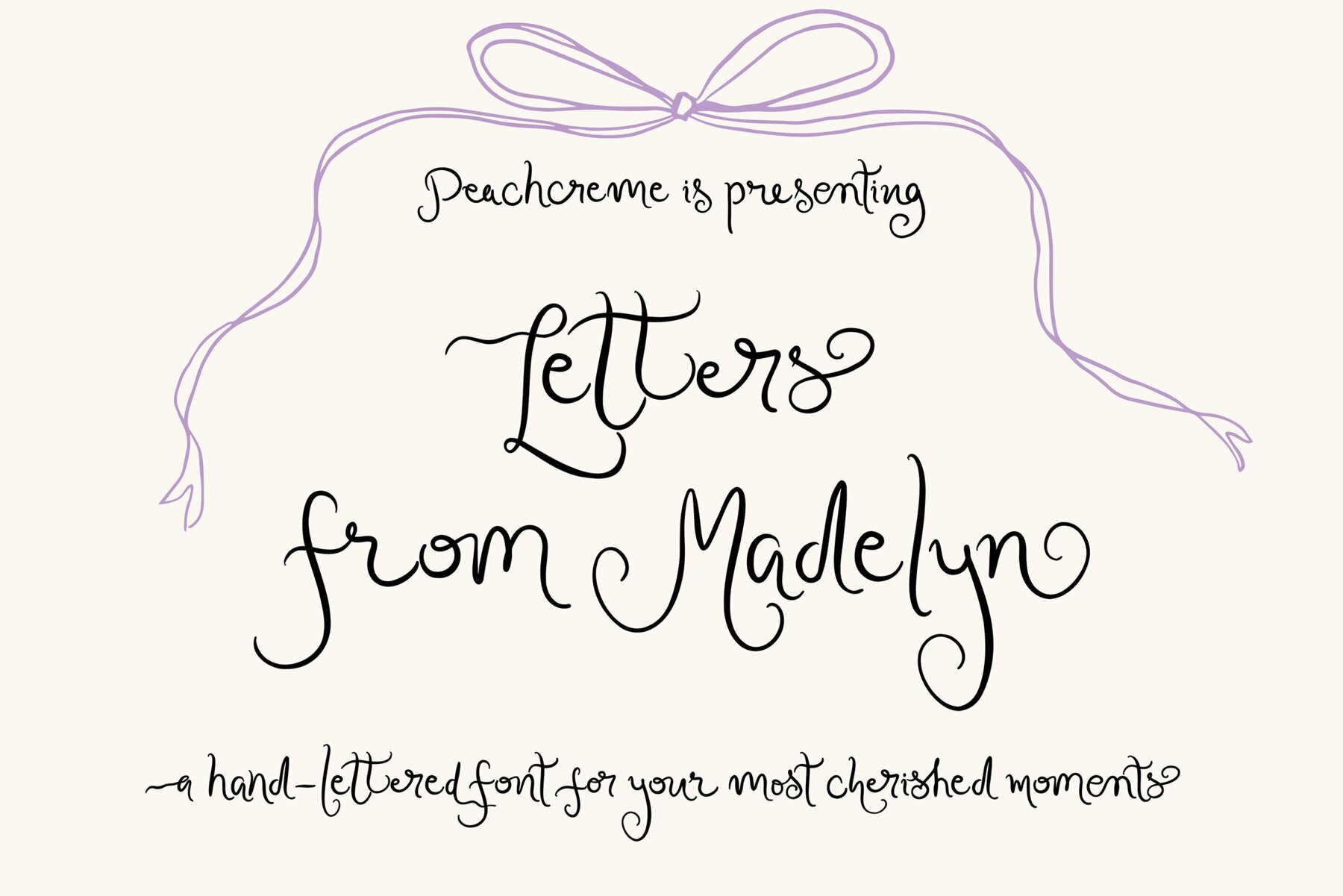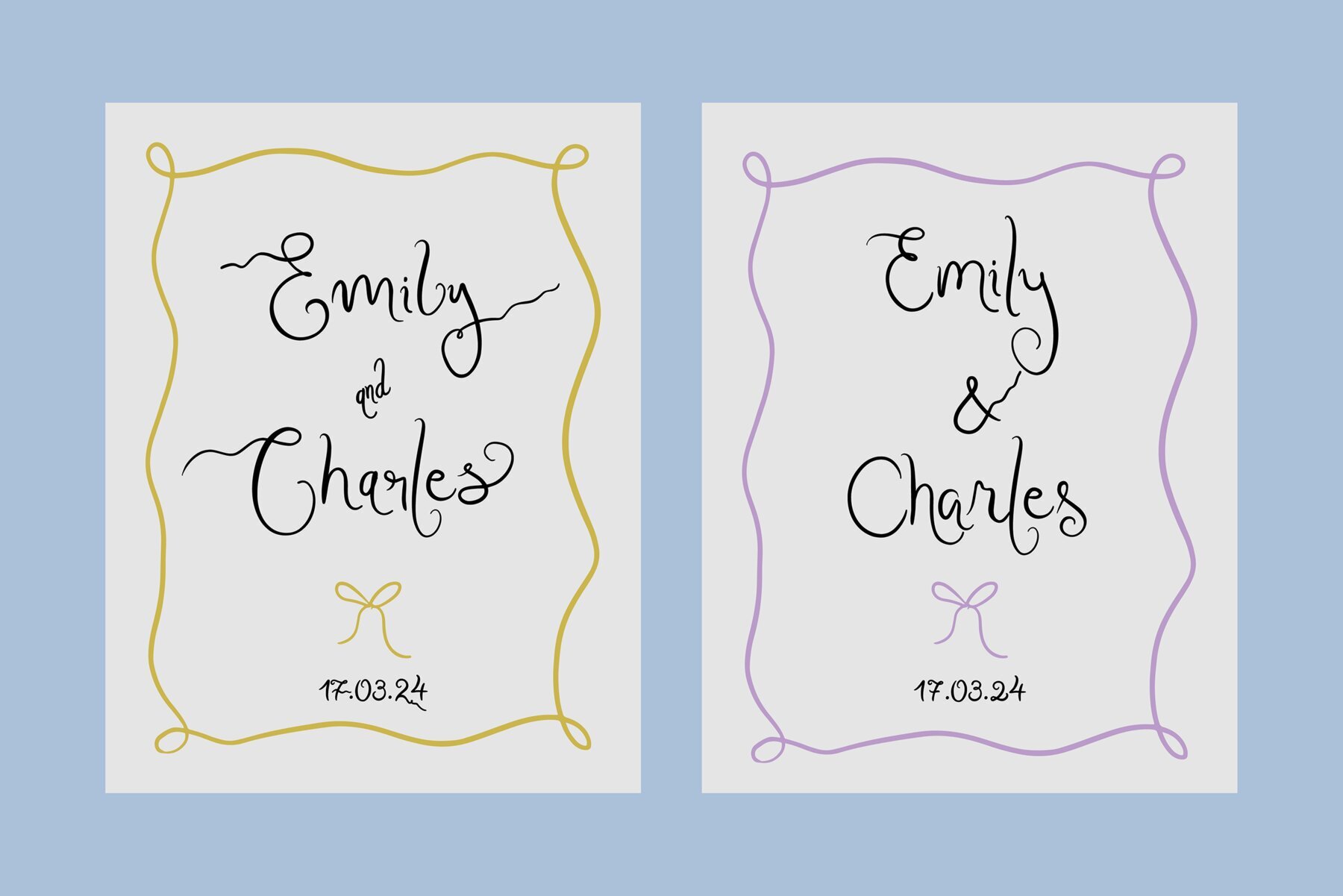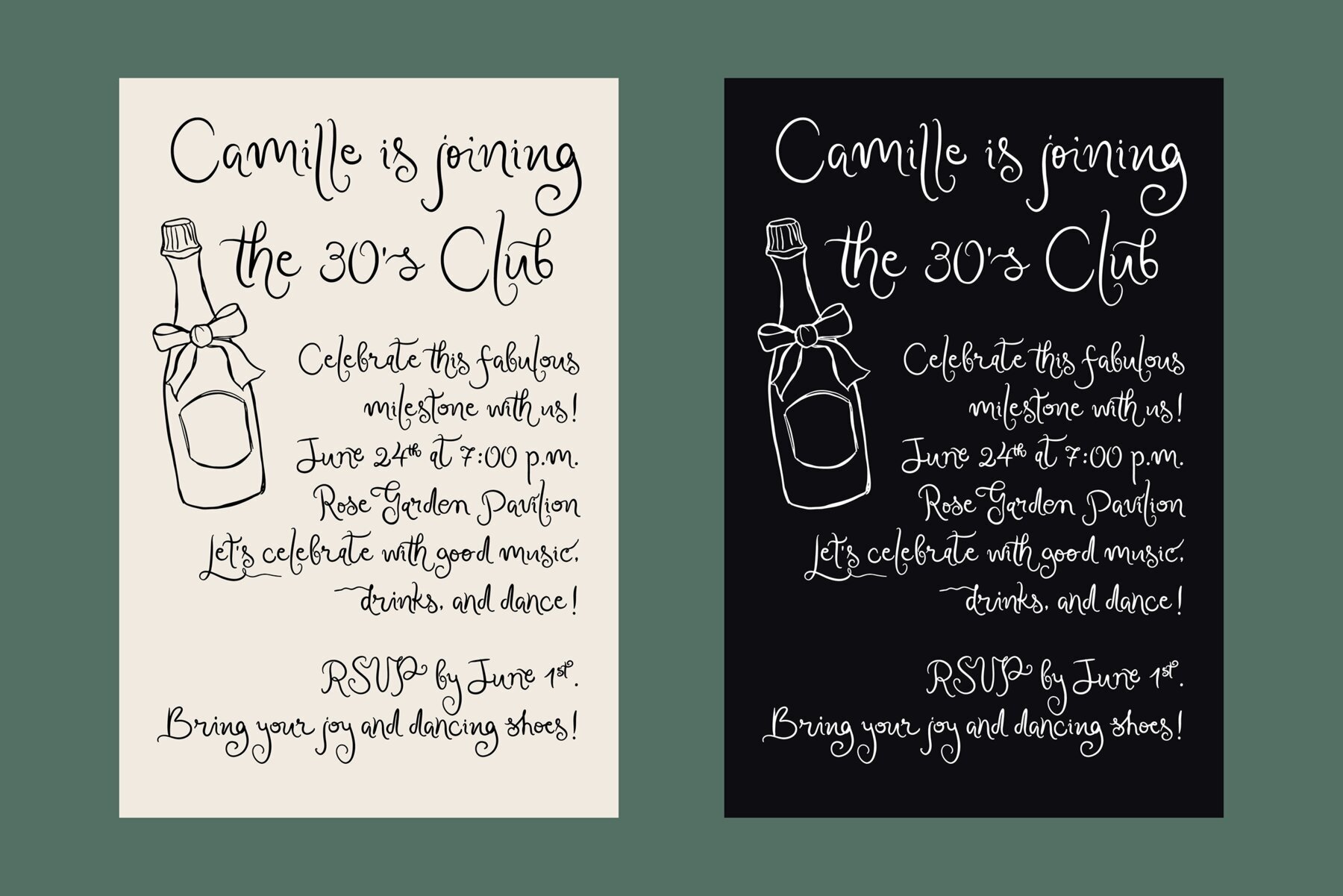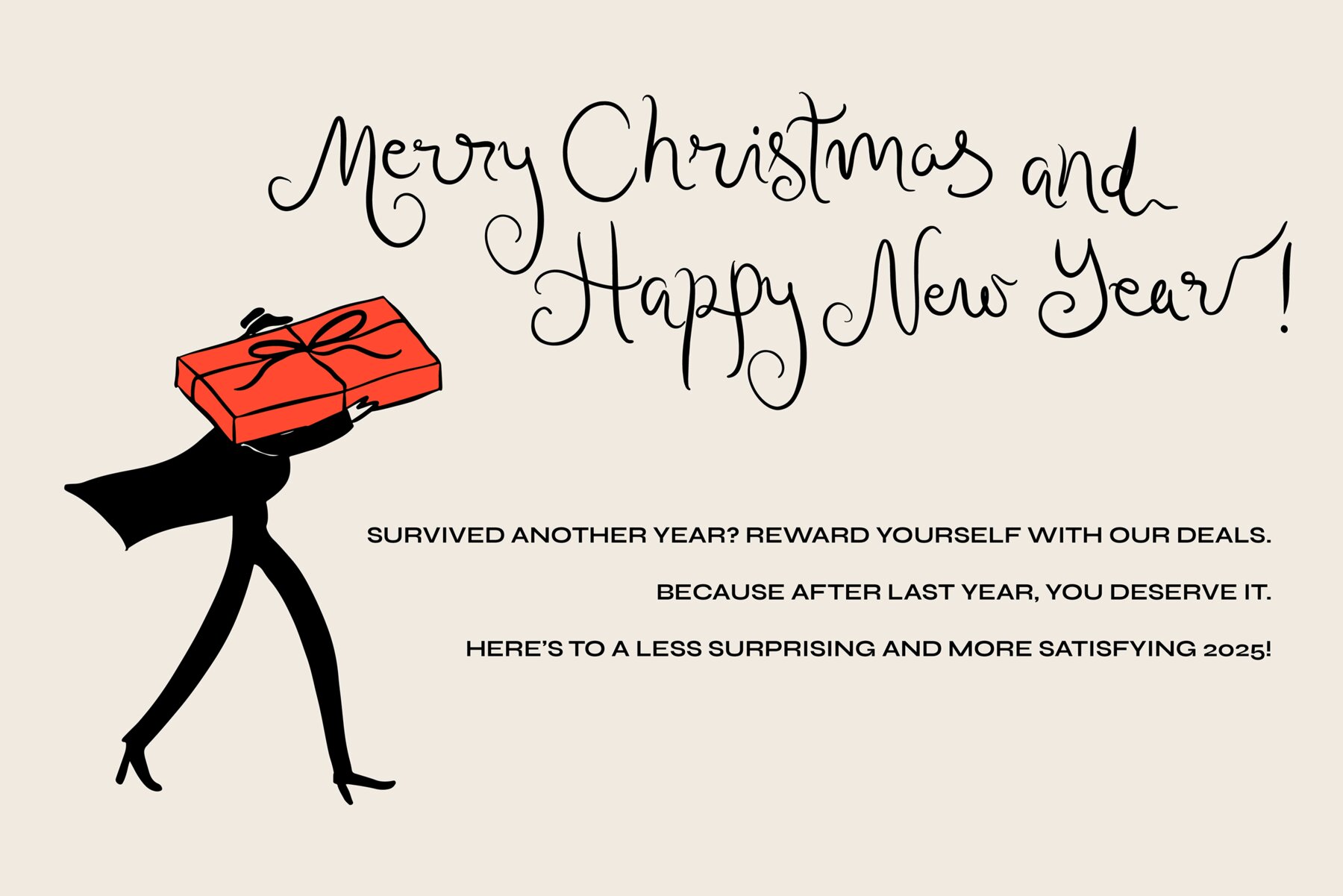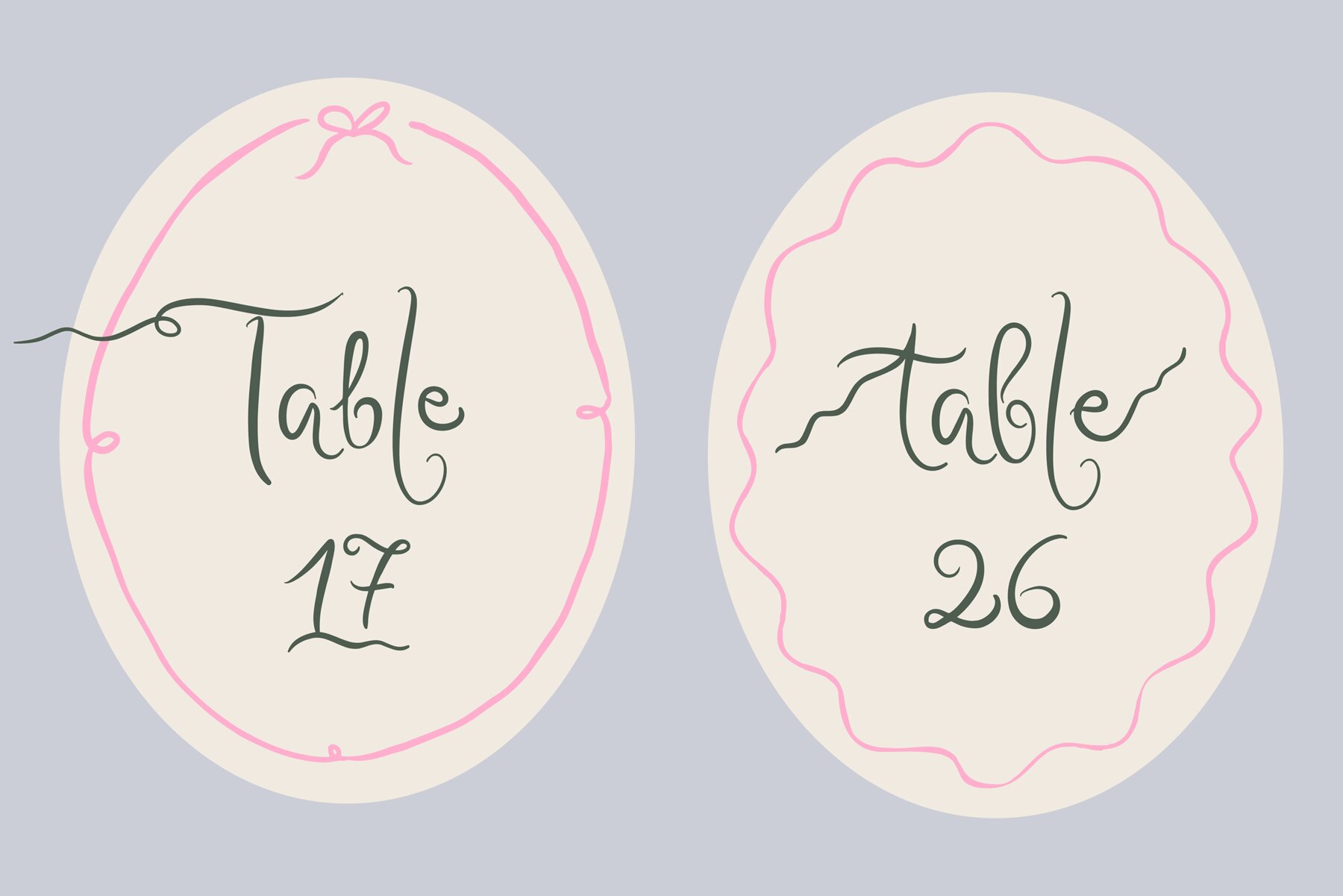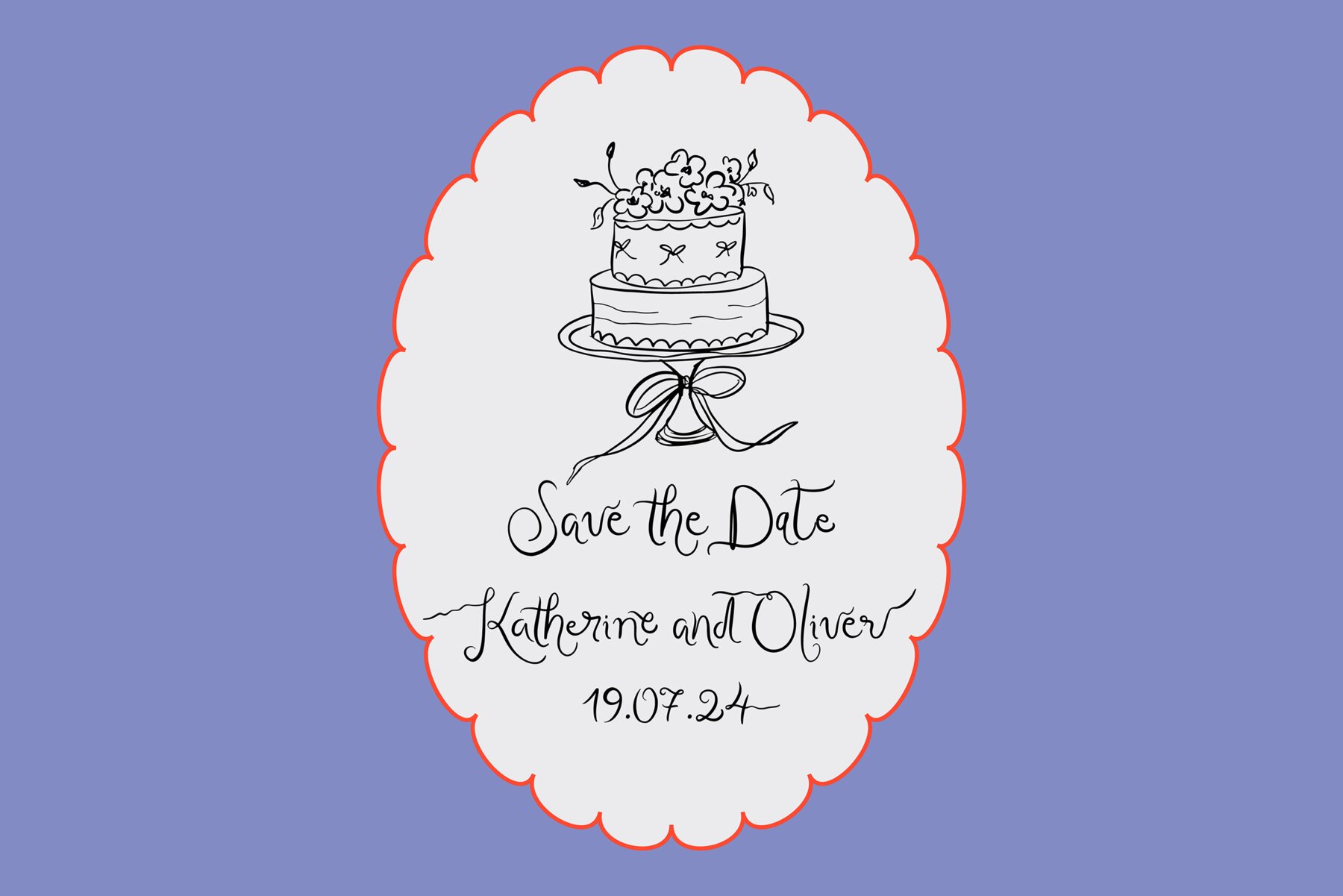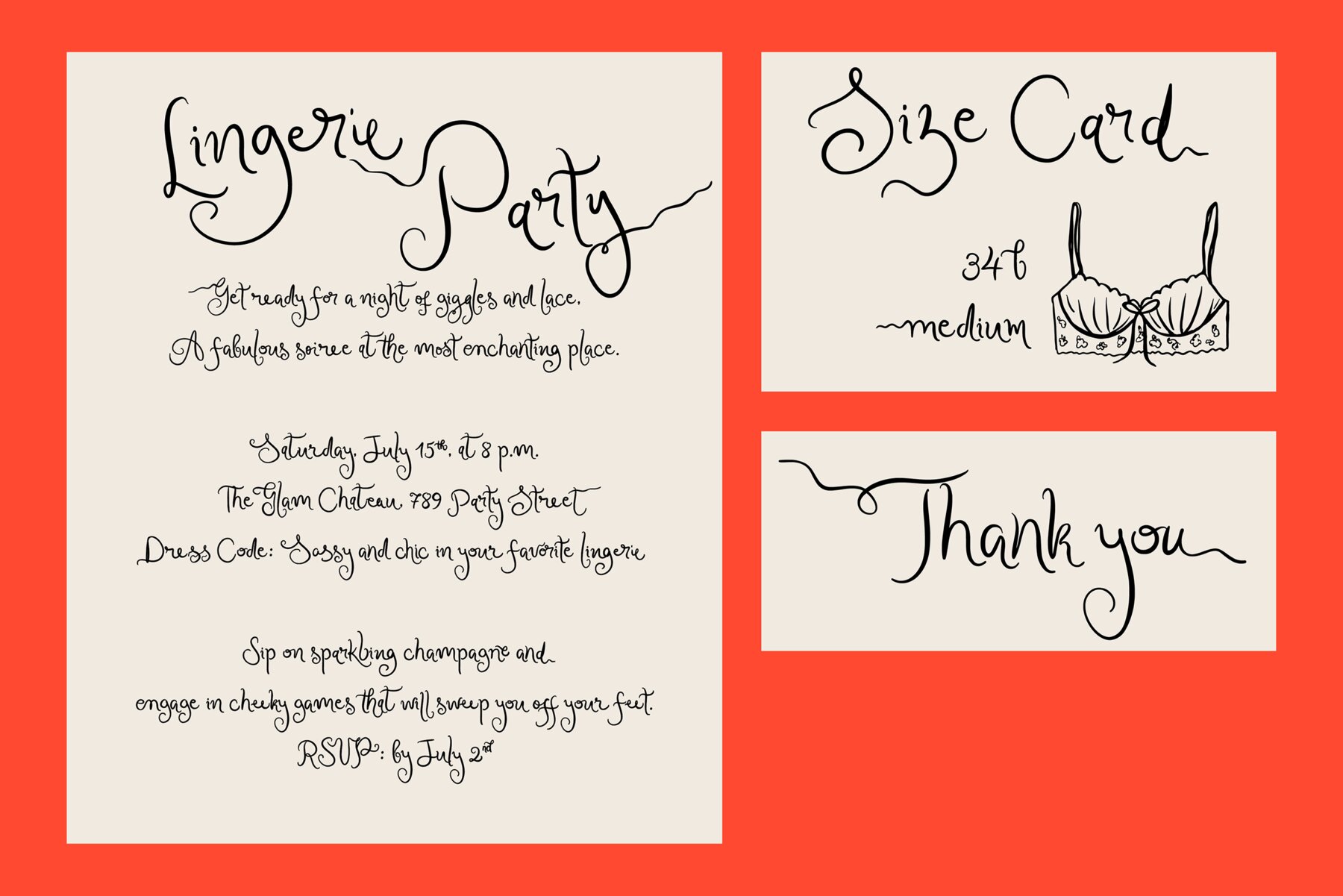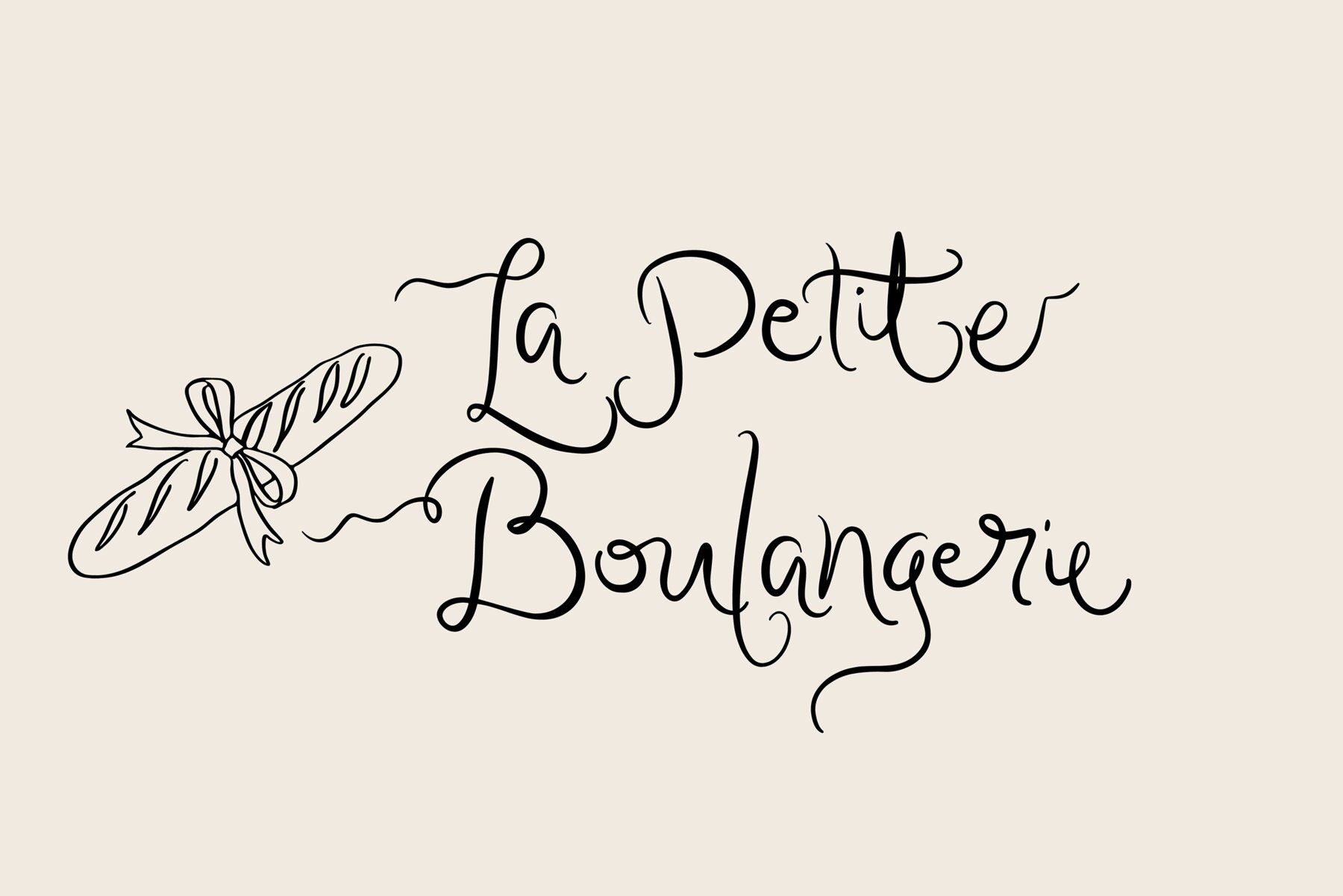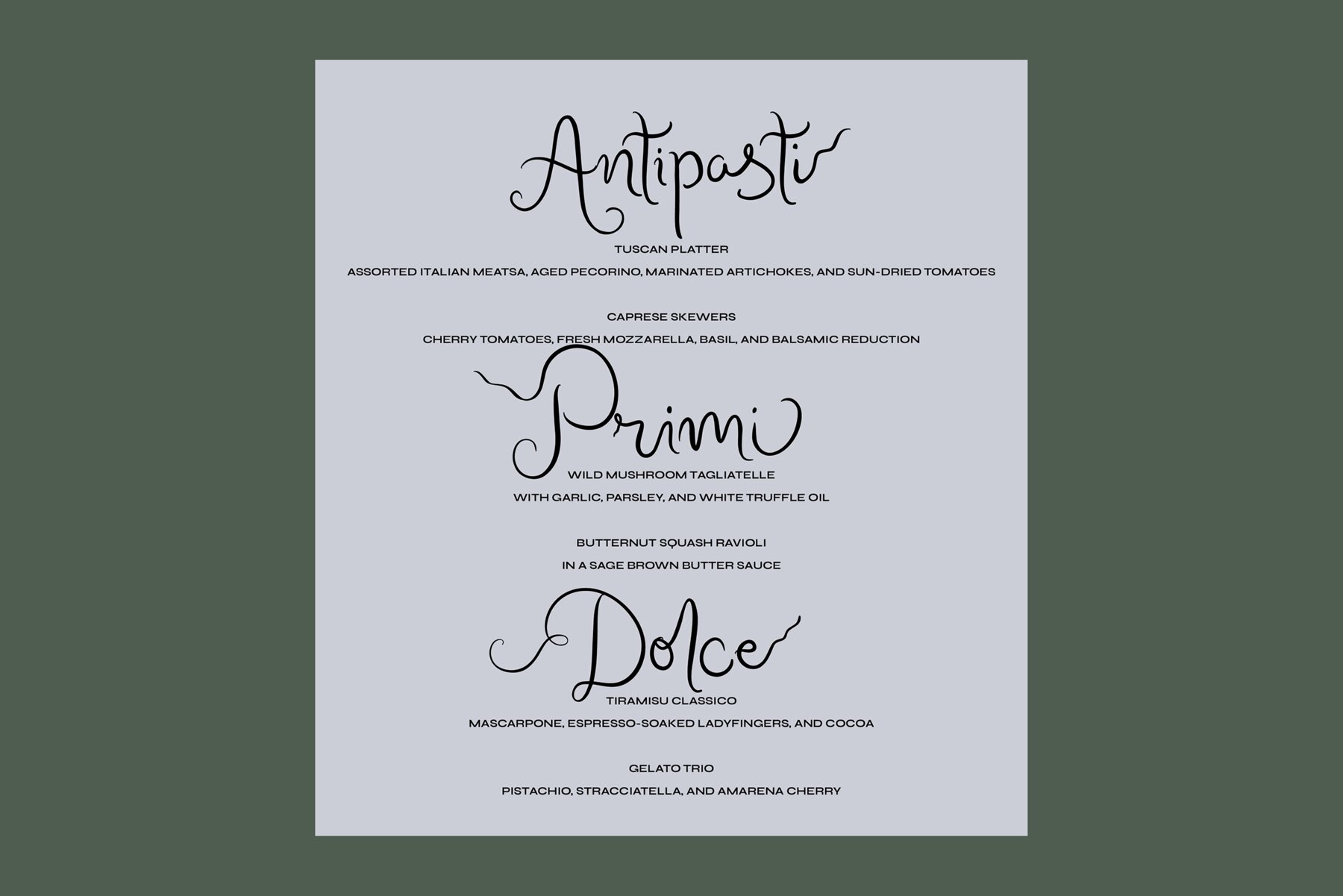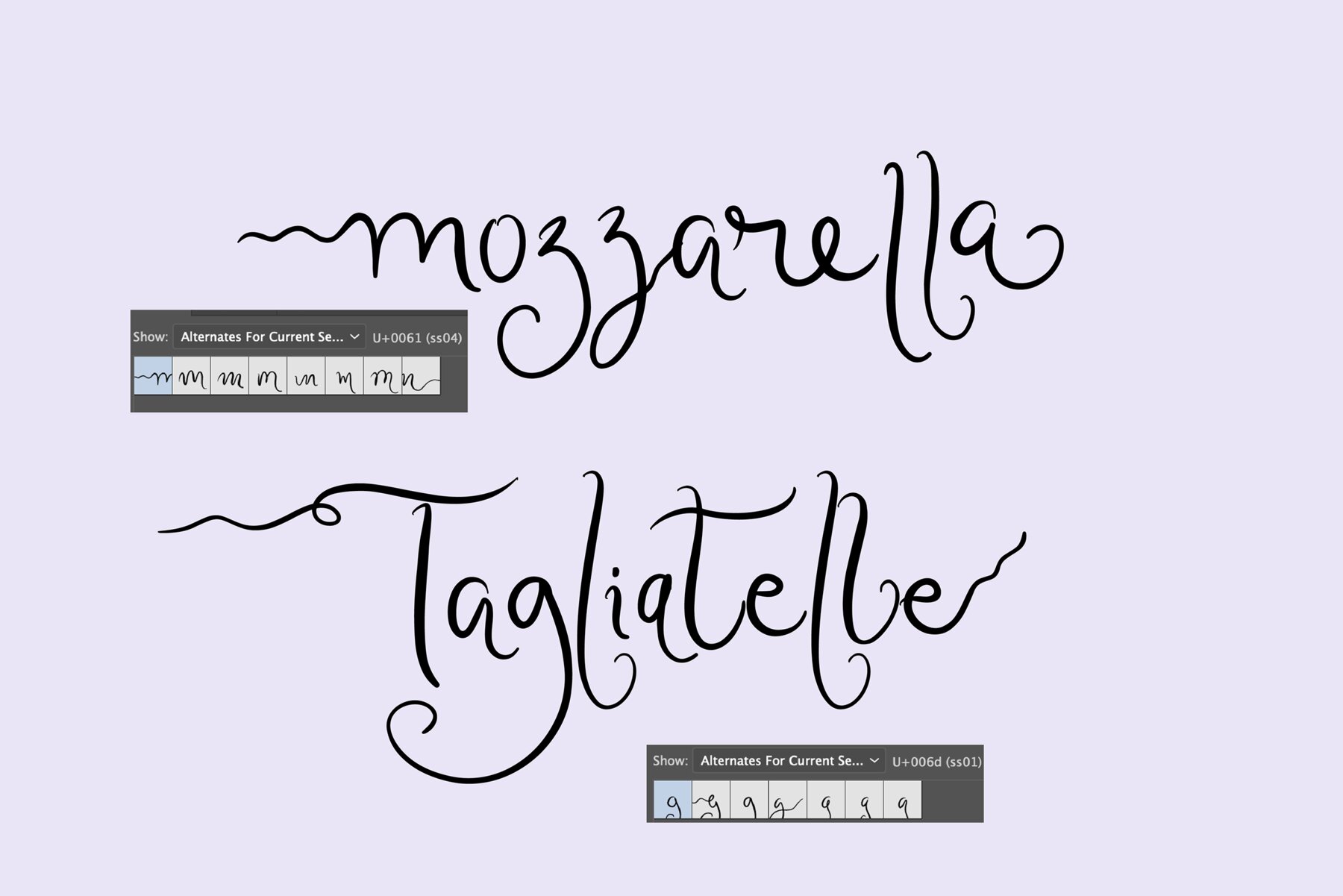
Letters from Madelyn Font
Introducing "Letters from Madelyn" – a distinctive and elegant font carefully crafted to add a touch of uniqueness to your projects. This font collection is comprised of three weights: Regular, Semi-Bold, and Bold, each designed to provide versatility and style to your text. One of the most remarkable features of "Letters from Madelyn" is its rich set of 82 ligatures, which bring a bespoke quality to every composition. Each lowercase letter is thoughtfully designed with at least two alternates, featuring both beginning and ending swashes. Select characters offer up to ten alternates, allowing for an extraordinary level of customization and flair. While "Letters from Madelyn" carries the essence of traditional calligraphy, it steps beyond the ordinary with its contemporary twist. This font is not just another calligraphy typeface; it's a blend of classic elegance and modern sophistication. Its unique character makes it particularly suitable for wedding invitations, boutique branding, and any project that calls for a font with a personal touch. Whether you're creating something for a special occasion or looking to elevate your brand's aesthetic, "Letters from Madelyn" offers both the charm of classic calligraphy and the fresh appeal of modern design. Let this font transform your ideas into stunning visual stories.